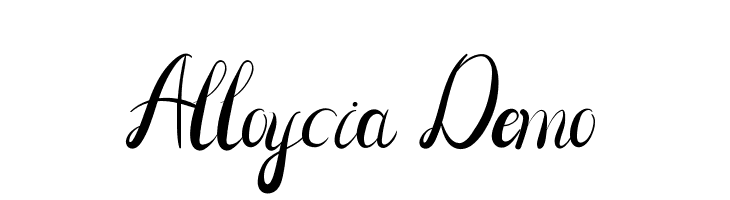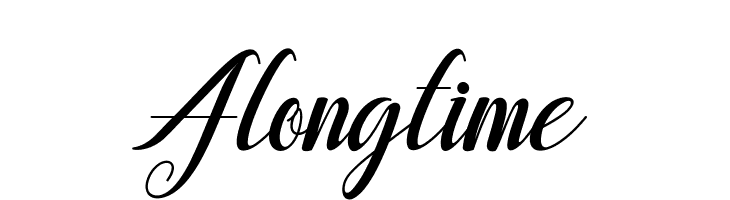
A cursive, elegant font with flowing curves and a sophisticated style.
A playful and elegant cursive script font with flowing loops and swirls.
A playful, bold handwritten font with thick, rounded strokes.
A bold, playful typeface with rounded, whimsical letterforms.
A playful and elegant script font with smooth curves and whimsical appeal.
A bold, playful font with rounded, bubbly characters and a hand-drawn feel.
A playful, cursive font with a handwritten feel, perfect for personal and creative projects.
A playful, whimsical font with a blend of curves and straight lines, ideal for creative projects.
A bold, textured, hand-drawn style font with a playful and artistic appearance.
A playful, handwritten font with thin, flowing lines and a whimsical style.
A dotted, script-style font with a playful and elegant appearance.
A lively and flowing script font with elegant cursive letterforms.
A playful, handwritten font with a casual and informal style.
A playful, hand-drawn font with rounded edges and a friendly style.
A bold, decorative font with intricate details and vintage flair.
A delicate, flowing script font with elegant curves and interconnected letters.
An elegant script font with flowing, ornate cursive letters and high contrast strokes.
A bold, hand-drawn font with an expressive and dynamic style.
An elegant, flowing script font with sweeping curves and delicate strokes.
A bold, dynamic script font with flowing, expressive strokes.
An elegant and decorative script font with flowing curves and intricate flourishes.
A bold, brush-style font with dynamic strokes and a modern, handwritten feel.
A modern, elegant script font with a handwritten style.
A modern, handwritten cursive font with a fluid and elegant style.
An elegant script font with flowing, interconnected letters and a sophisticated style.
A bold, high-contrast serif font with elegant curves and a modern twist.
An elegant script font with intricate loops and flowing cursive style.
A playful, handwritten font with a whimsical and dynamic style.
An elegant calligraphic font with flowing, decorative strokes and intricate swirls.
A playful handwritten font with tall, narrow letters and a whimsical style.